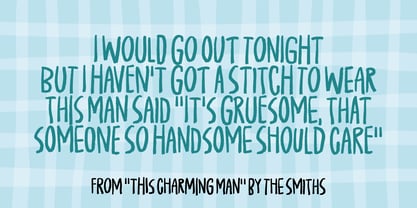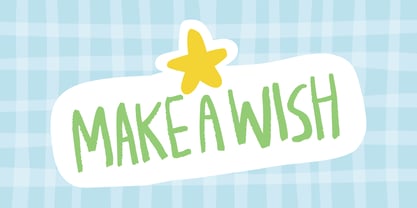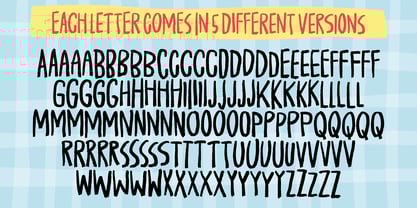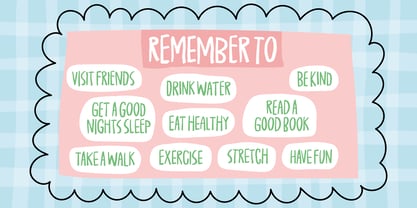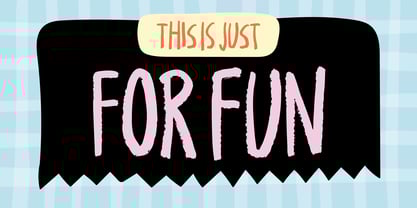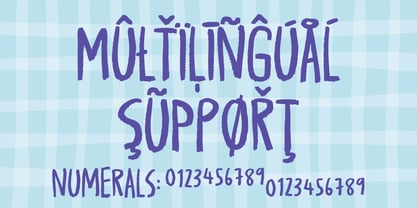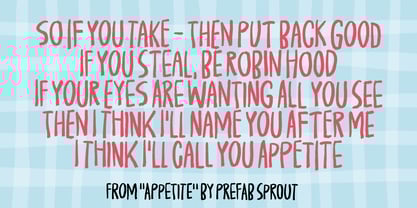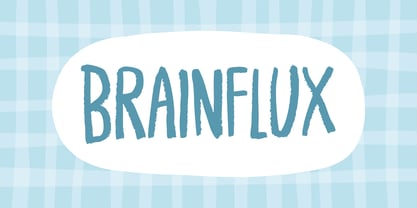
Brainflux
by PizzaDude.dk
The Brainflux Font Family was designed by Jakob Fischer and published by PizzaDude.dk. Brainflux contains 2 styles and family package options. More about this family
Brainflux is my latest brush font. The letters are easily recognisable, even though they were drawn in a hurry and somewhat sloppy. But what it does is, that it leaves you with a nice impression of outspokenness. Use it for massive texts, and it feels like a train moving from one place to another without changing direction or stopping!
Designers: Jakob Fischer
Foundry: PizzaDude.dk